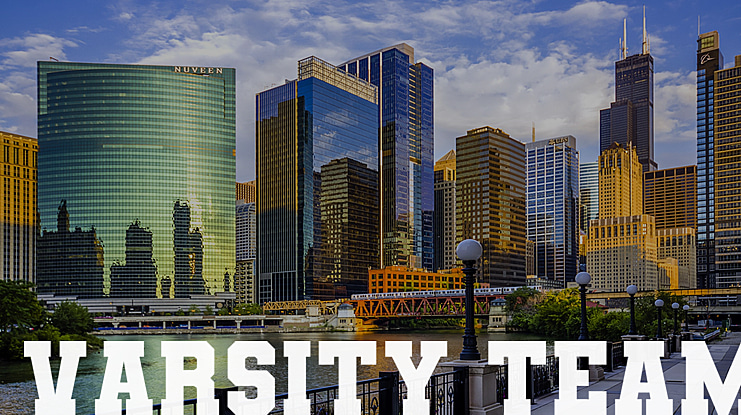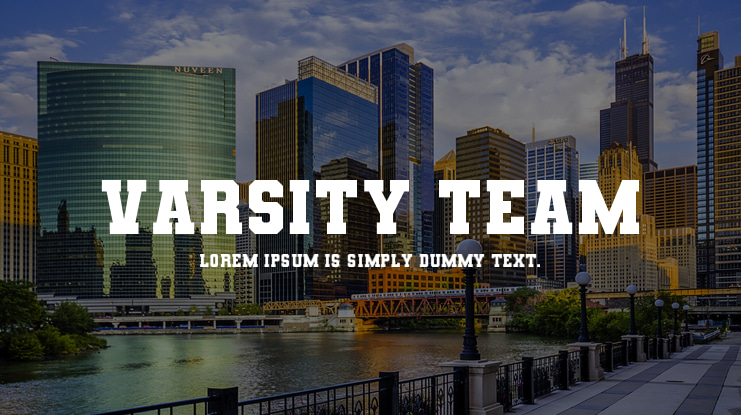
Varsity Team Font
A .OTF files format with a total count of 284 glyphs, an all caps font with no variants that includes, all numbers and punctuation; I'll appreciate your support if possible. Enjoy!